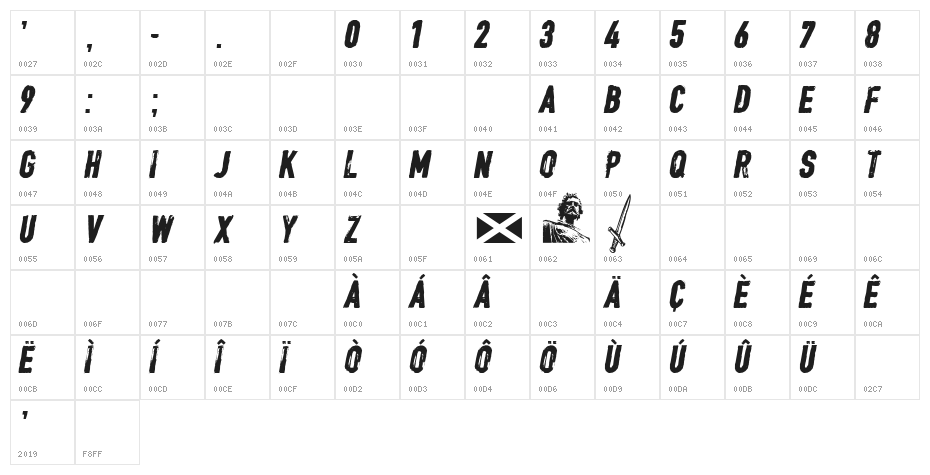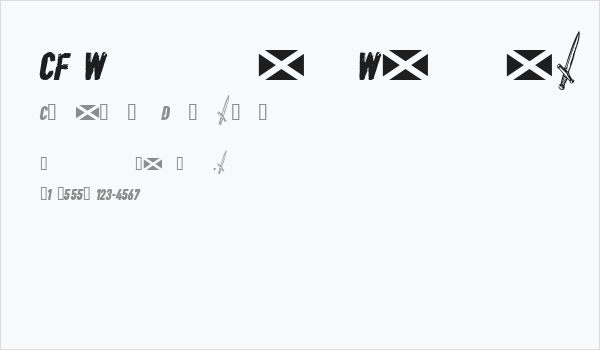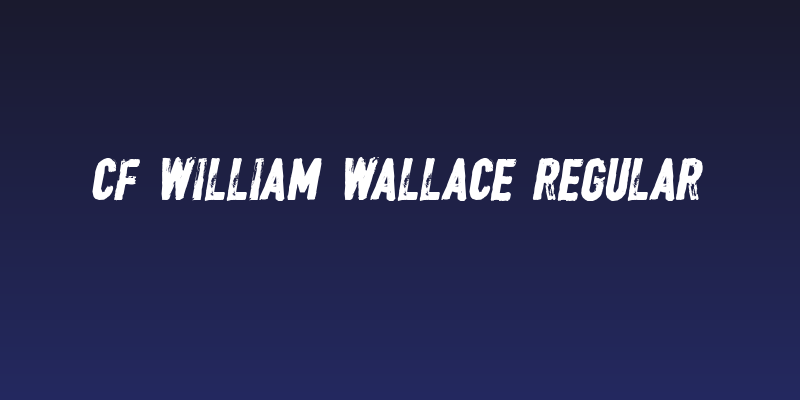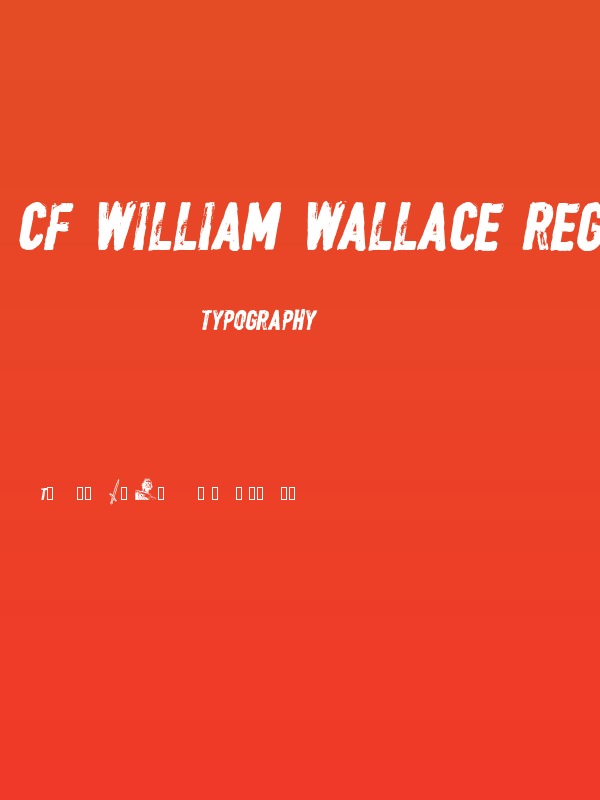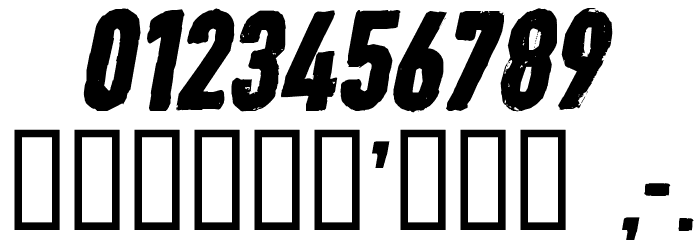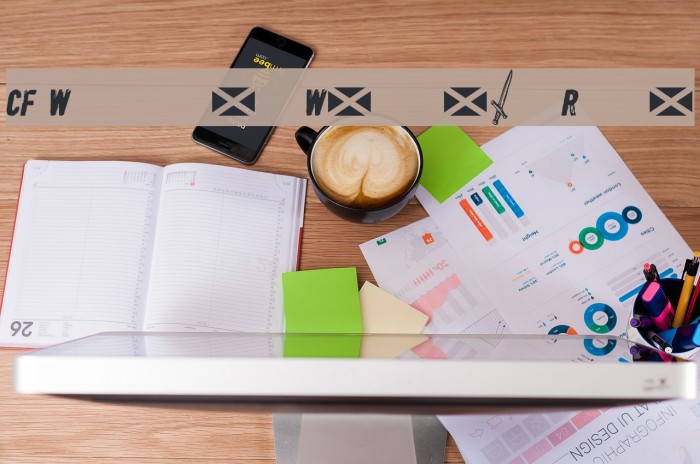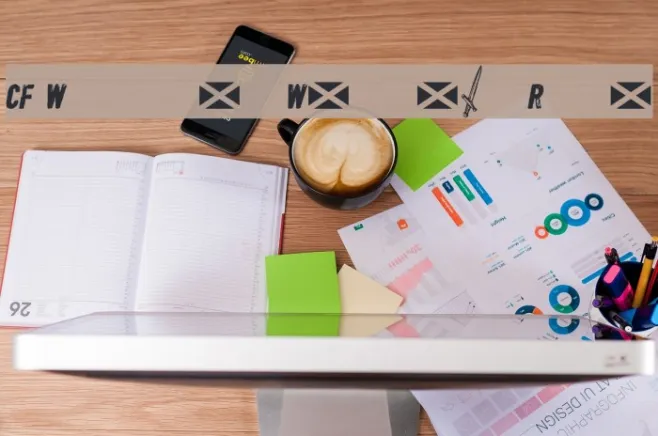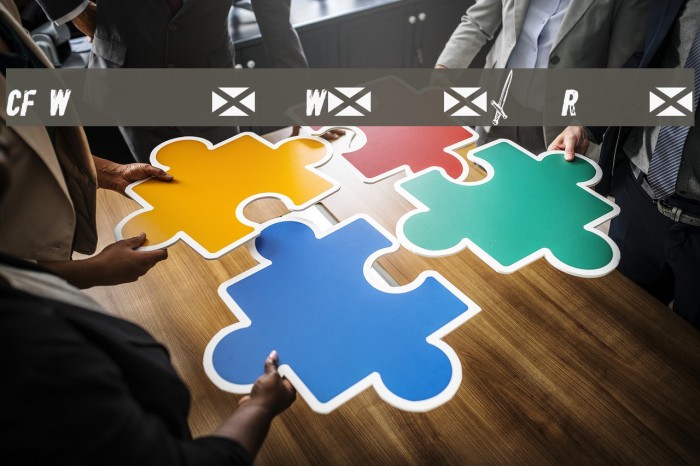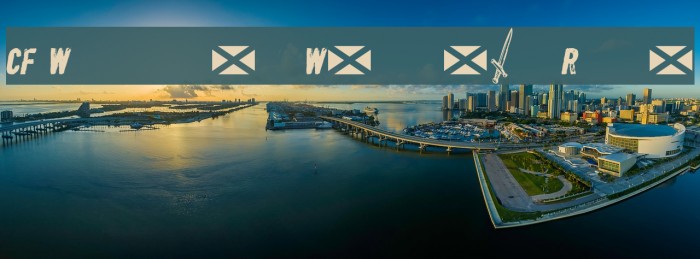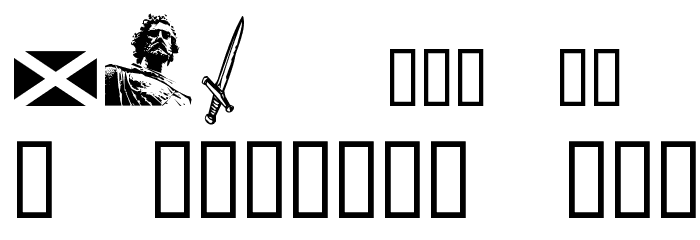
CF William Wallace Regular Font
CF William Wallace Regular Description
This font exhibits a bold and rugged style, reminiscent of historical or battle-themed designs. The uppercase letters are strong and impactful, with a distressed texture that adds a sense of age and wear. The numerals and special characters follow the same aesthetic, maintaining consistency throughout. This font is ideal for projects that require a dramatic and bold statement, such as posters, banners, or themed events. Its unique style captures attention and conveys a sense of strength and resilience.
| Proposed Projects | Ideal for posters, banners, themed events, and historical or battle-themed designs. |